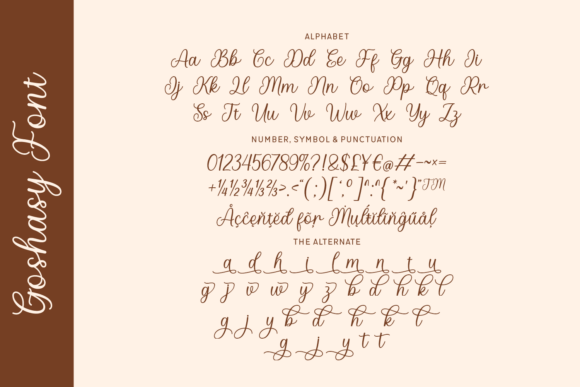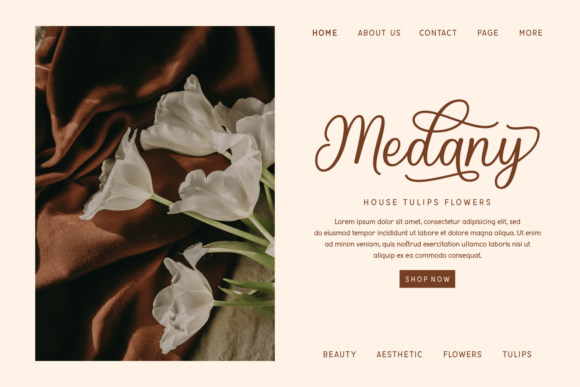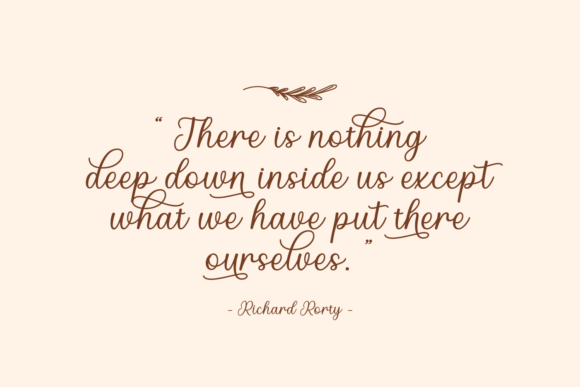
The Magic of Goshasy Font: Elevate Your Designs with Elegant Script Calligraphy
I’ll never forget the time I was working on a wedding invitation project, and my client asked for a font that was both elegant and personal. I scoured the internet, tried countless fonts, but nothing seemed quite right. That was until I stumbled upon Goshasy Font. This beautiful script calligraphy font has been a game-changer for me, and I’m excited to share its magic with you! ✨
I’ve had the pleasure of working with Goshasy Font on several projects, and here’s what I think:
- ✅ Elegant, flowing letters that add a touch of sophistication to any design
- ✨ Modern, handwritten style that’s perfect for creative projects
- 💫 Works beautifully for invitations, greeting cards, and other designs that need a personal touch
- 🎨 Highly versatile, pairing well with a variety of colors and design elements
While Goshasy Font is a stunning addition to any design, there are a few quirks to keep in mind:
- 🤔 Some letters may require manual kerning for optimal spacing
- ⚠️ Limited availability of certain glyphs or special characters
- Experiment with OpenType features, such as ligatures and stylistic alternates, to add visual interest
The Story Behind Goshasy Font
Goshasy Font was designed with the intention of creating a beautiful, modern script calligraphy font that captures the essence of handwritten elegance. Inspired by the flowing letters of traditional calligraphy, Goshasy Font brings a touch of sophistication to any design. Whether you’re a designer, crafter, or creative hobbyist, this font is sure to become a favorite in your collection.
| What type of projects is Goshasy Font best suited for? | Goshasy Font is perfect for designs that need a personal touch, such as invitations, greeting cards, and other creative projects. |
| Does Goshasy Font support OpenType features? | Yes, Goshasy Font supports OpenType features, including ligatures, stylistic alternates, and glyphs. |